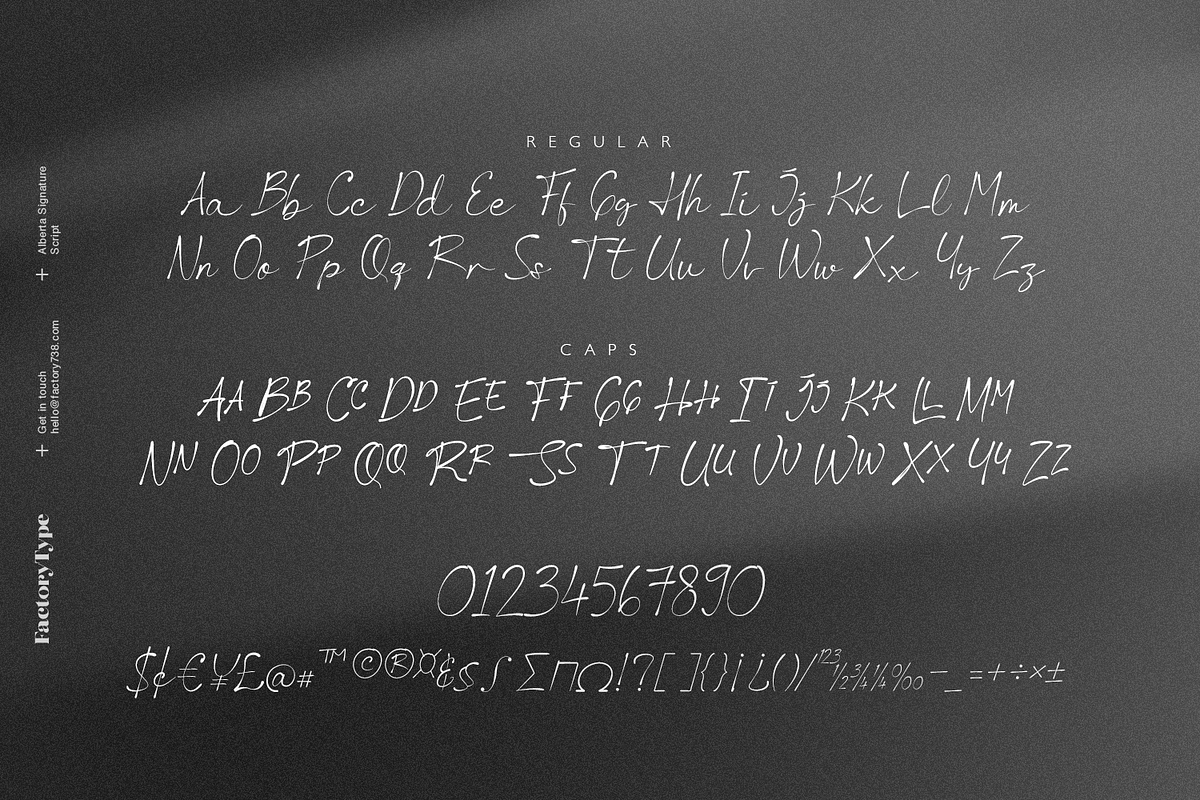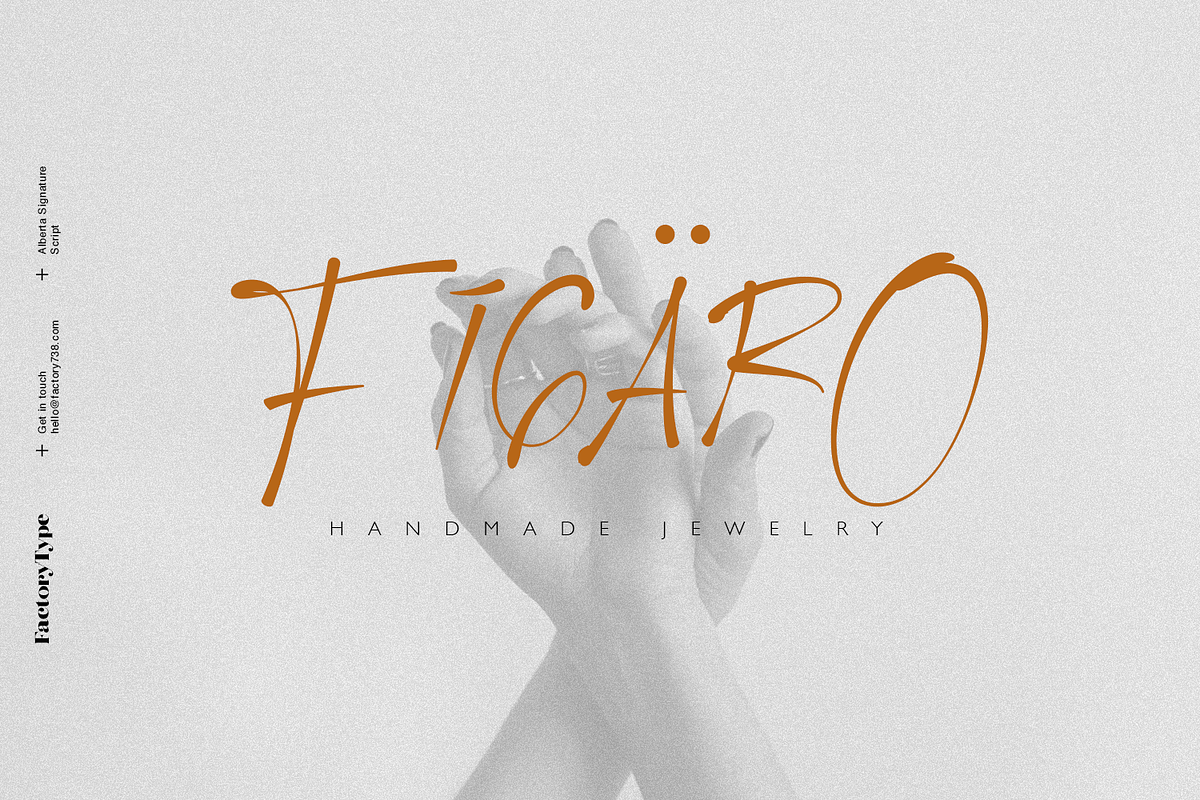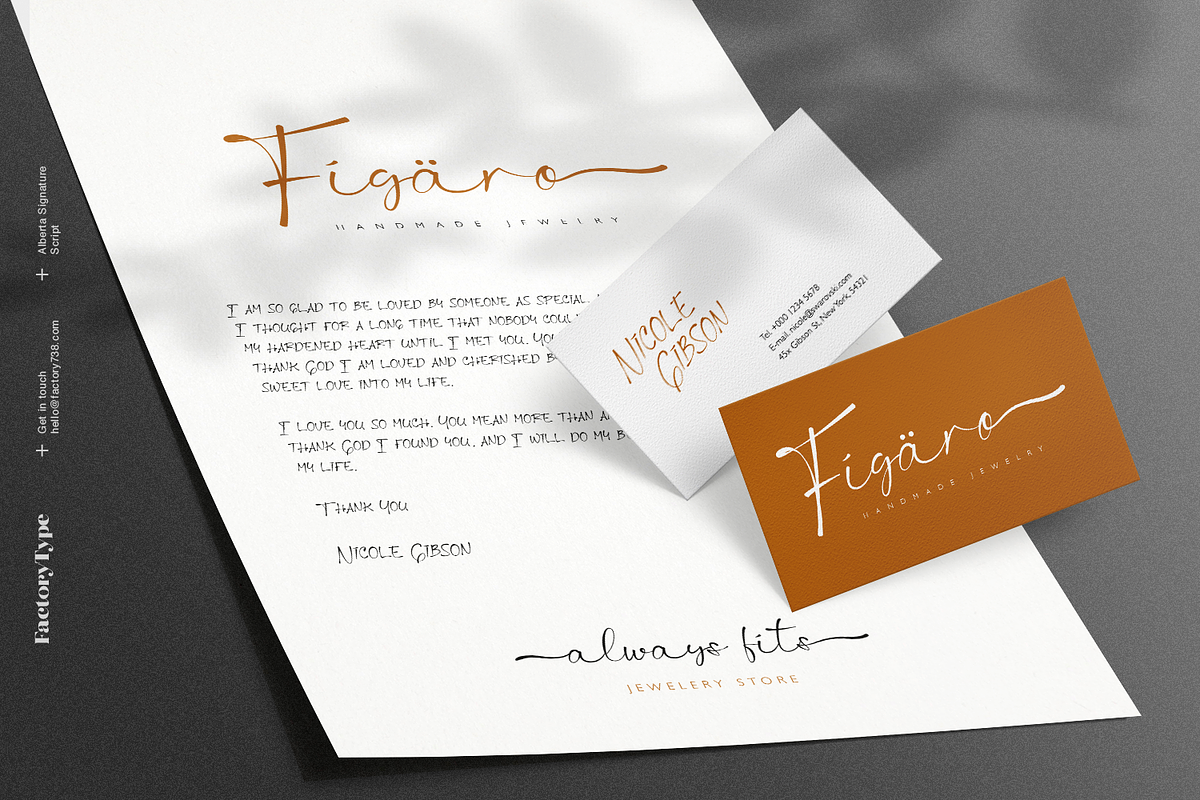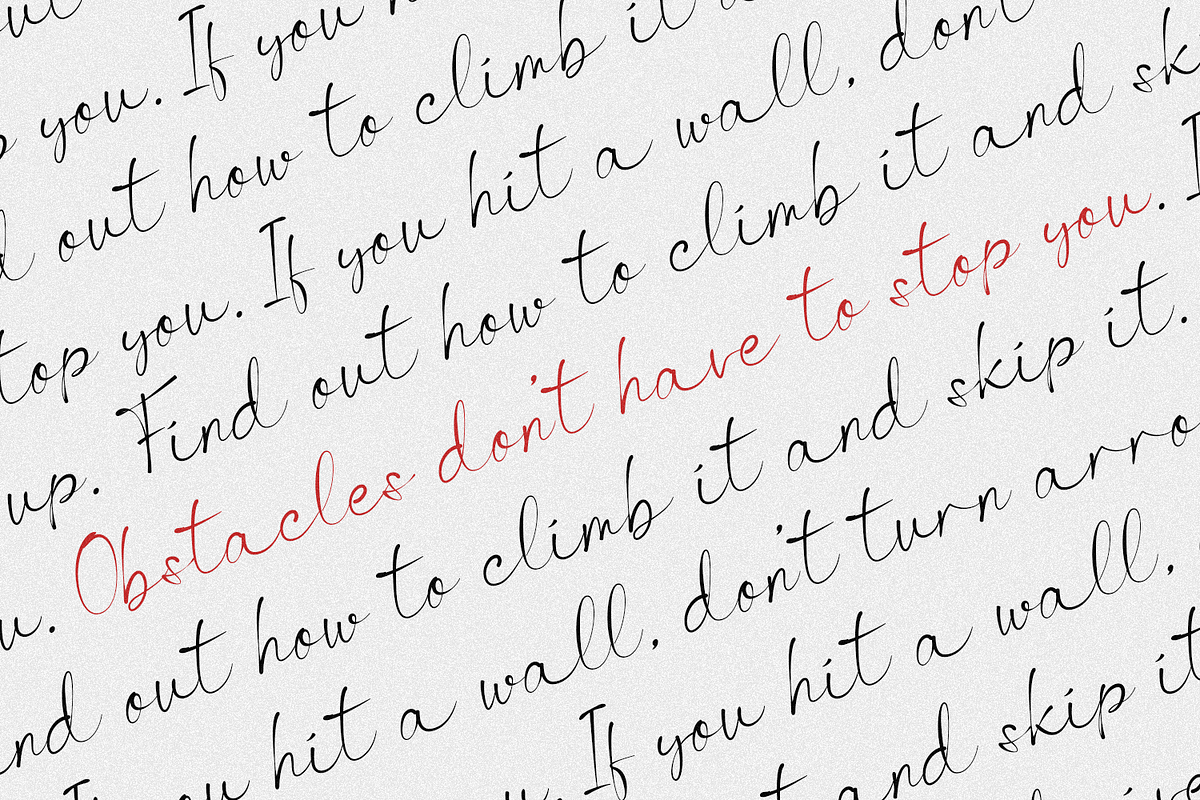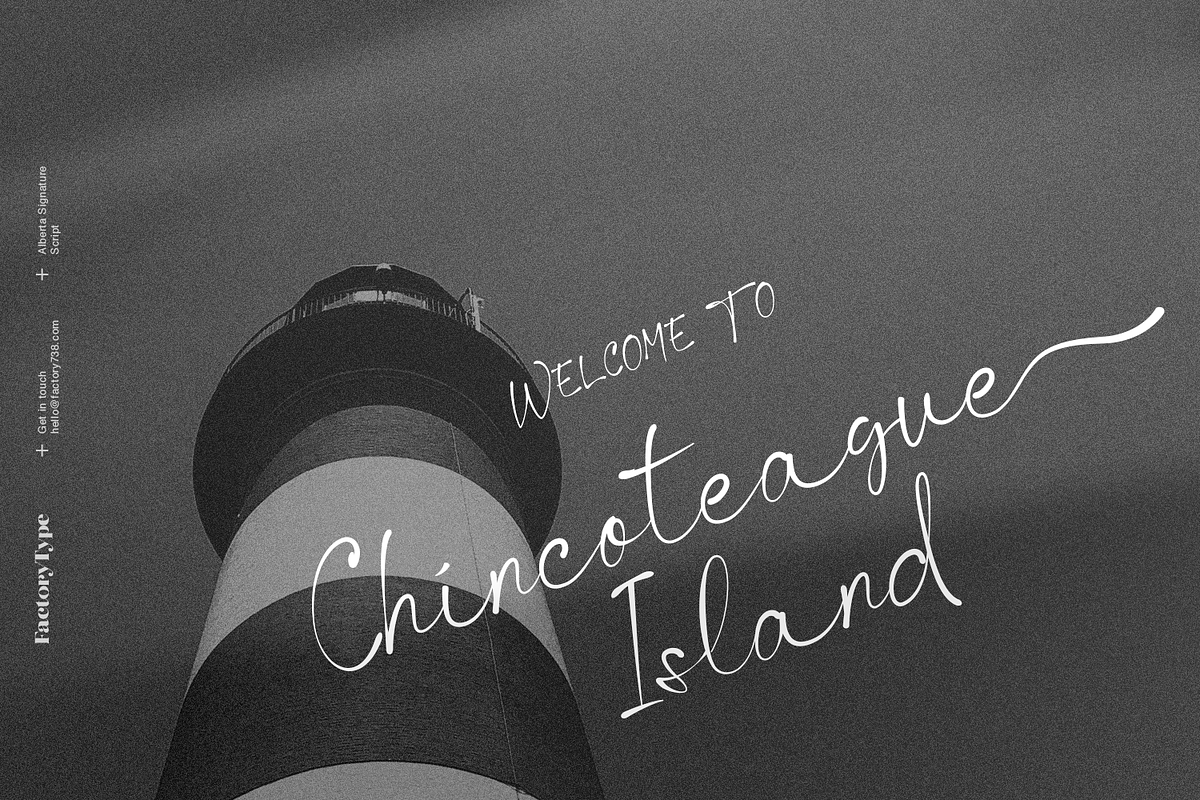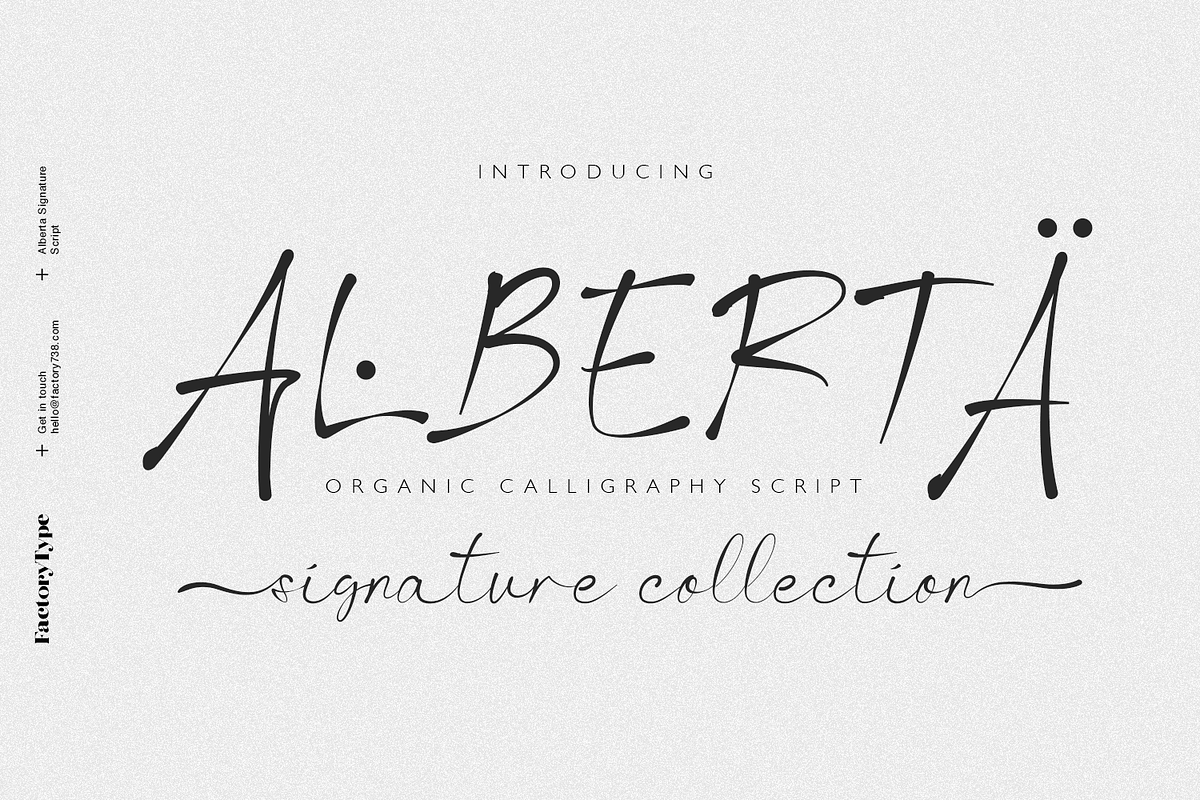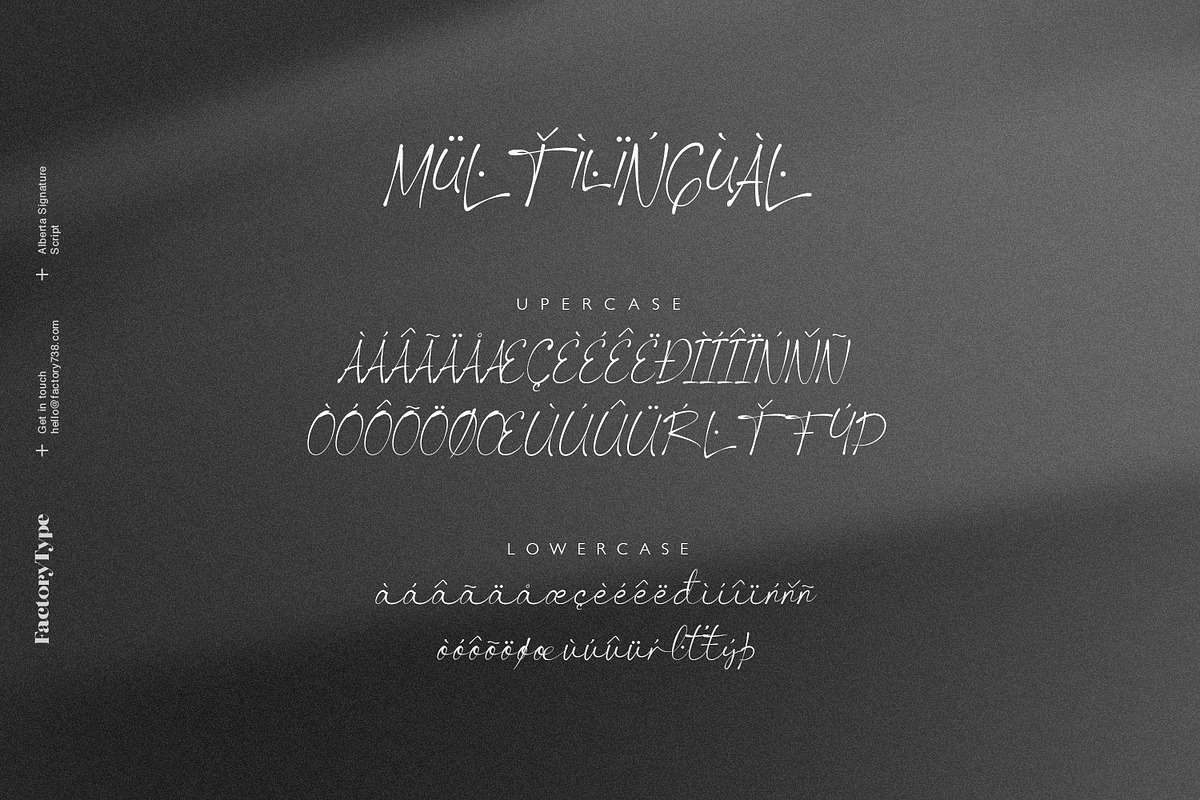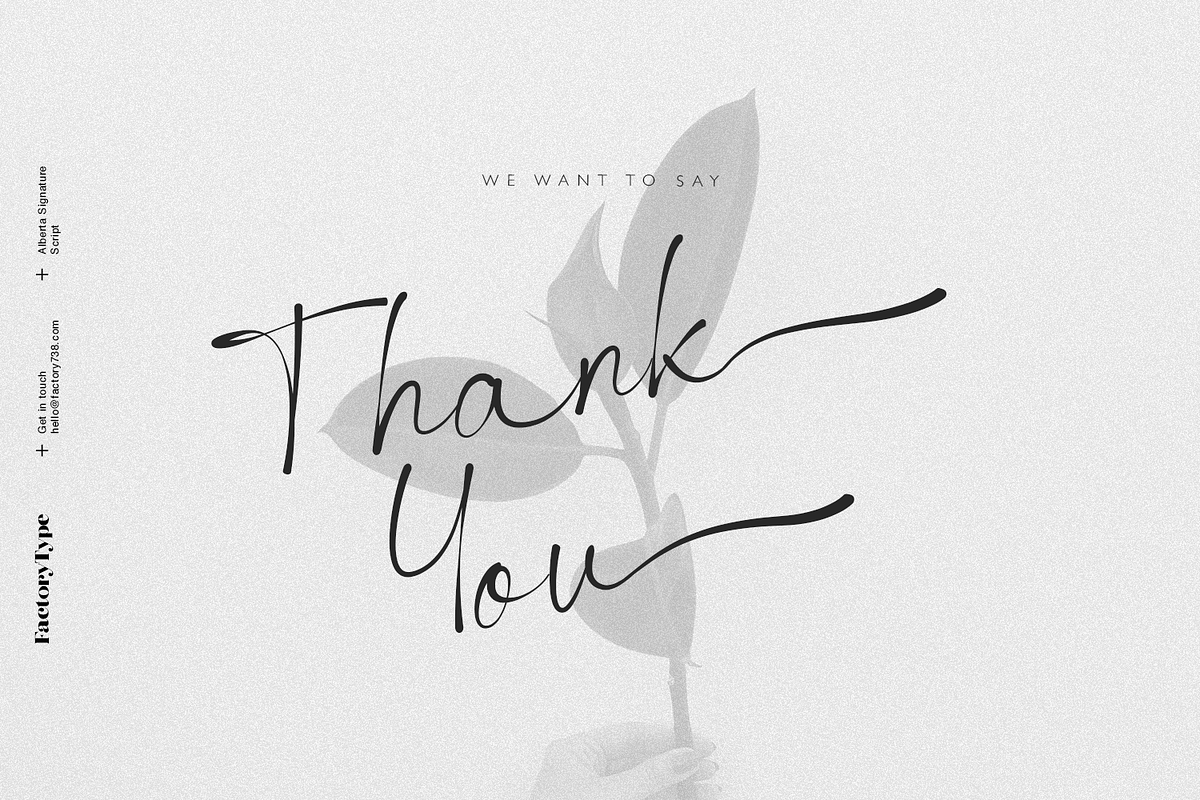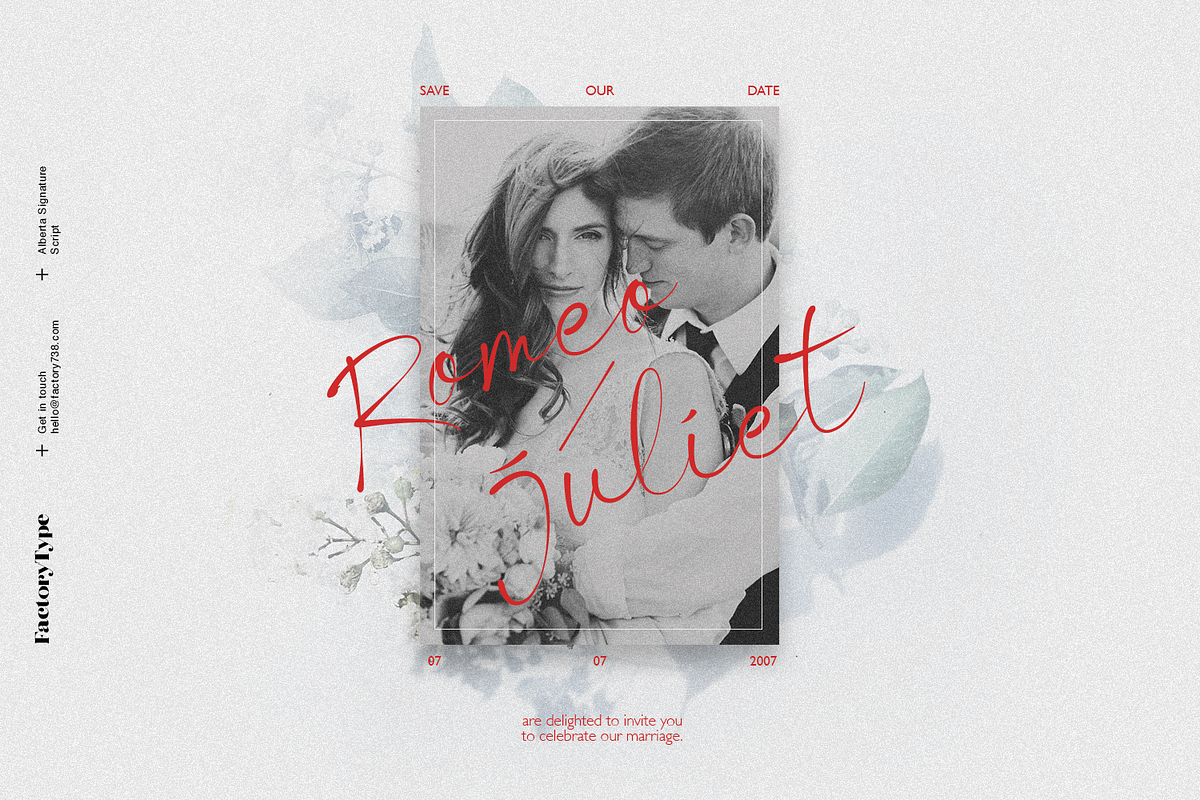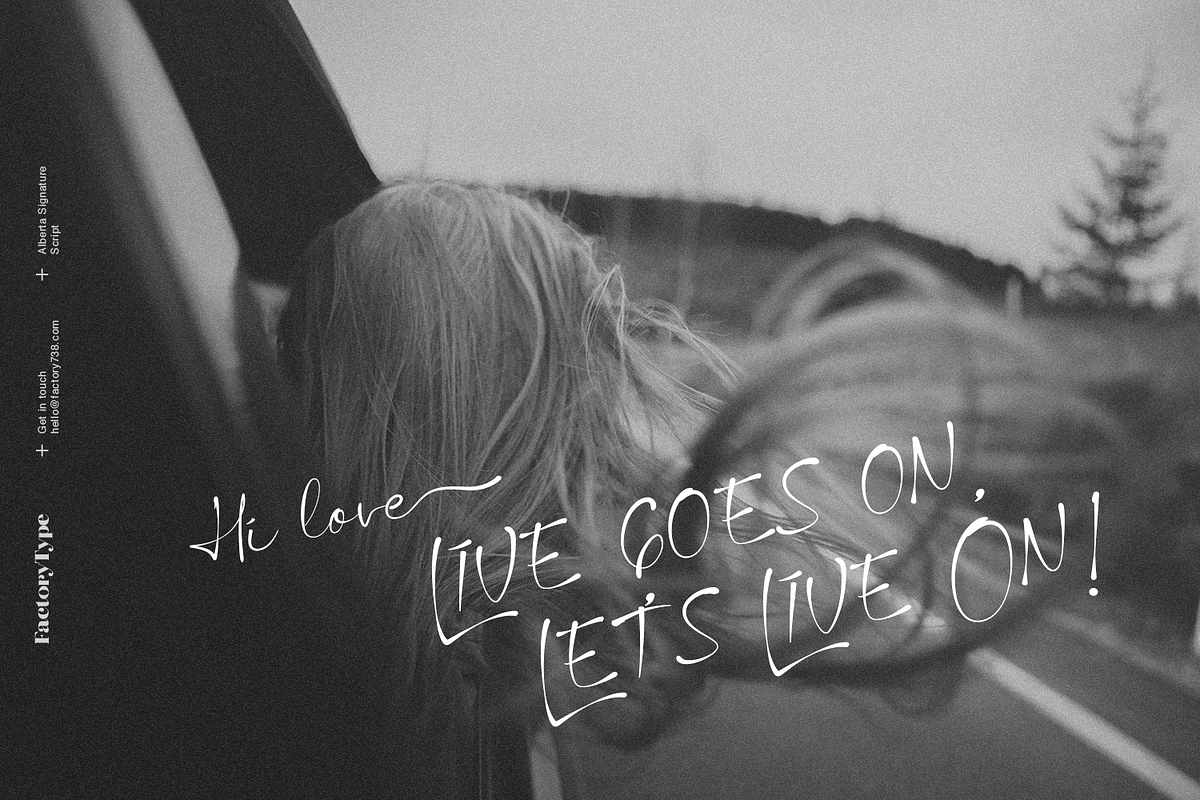
Alberta Signature Script
Alberta Signature Script is ideal for branding projects, logos, wedding designs, social media posts, advertisements, product packaging, product designs, label, photography, watermark, invitation, stationery, and any other project that requires a handwritten touch.
- Alberta Signature Script (Regular, Caps, and Tails)
- Multilingual Support for ä ö ü Ä Ö Ü …